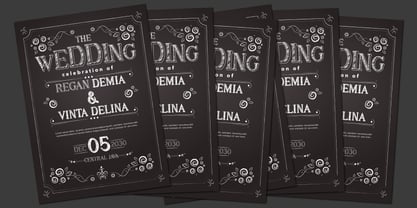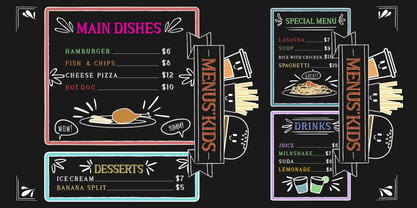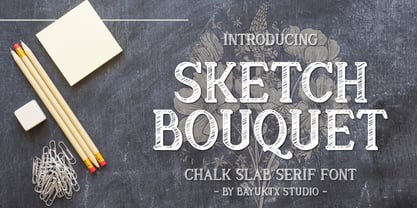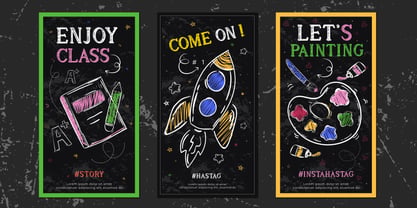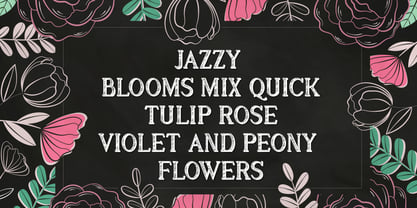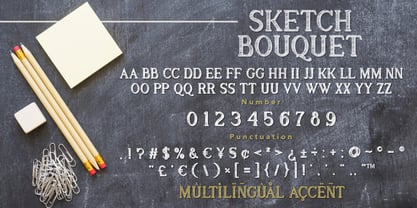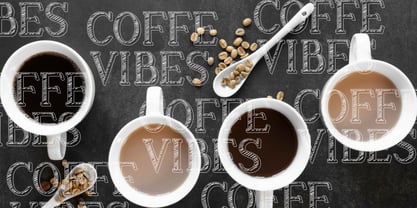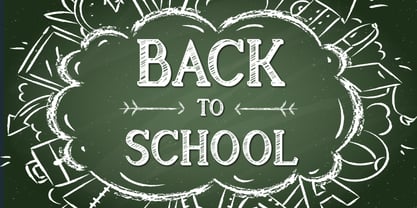
Sketch Bouquet
The Sketch Bouquet Font Family was designed by Bayu Aji Fais Mursid and published by Bayuktx. Sketch Bouquet contains 1 styles. More about this family
Sketch Bouquet a Chalk Slab Serif Font is a charming hand-drawn typeface inspired by classic chalkboard lettering and delicate floral sketches. Featuring bold slab serifs combined with textured chalk strokes, this font delivers a warm, artistic, and nostalgic feel perfect for creative and decorative designs. Designed to evoke the beauty of hand-sketched typography, Sketch Bouquet offers strong readability with an organic handmade character. Its slightly rough edges and floral mood make it ideal for designs that seek authenticity, warmth, and a vintage chalk aesthetic. Perfect for both digital and print use, this font shines in branding, posters, packaging, menus, and creative projects that require a handcrafted touch. Key Features : * Uppercase & Lowercase * Numerals & Punctuation * Multilingual Support * PUA Encoded & OpenType Features * Chalk Texture & Hand-Drawn Style * Bold Slab Serif Letterforms Suitable For : * Floral & Botanical Branding * Cafe, Bakery & Restaurant Menus * Vintage & Chalkboard Designs * Posters, Headlines & Signage * Packaging & Labels * Wedding, Craft & Handmade Projects * Social Media & Creative Content With Sketch Bouquet a Chalk Slab Serif Font, your designs bloom with artistic charm, vintage warmth, and handcrafted elegance — perfect for creative projects that feel natural, expressive, and timeless.